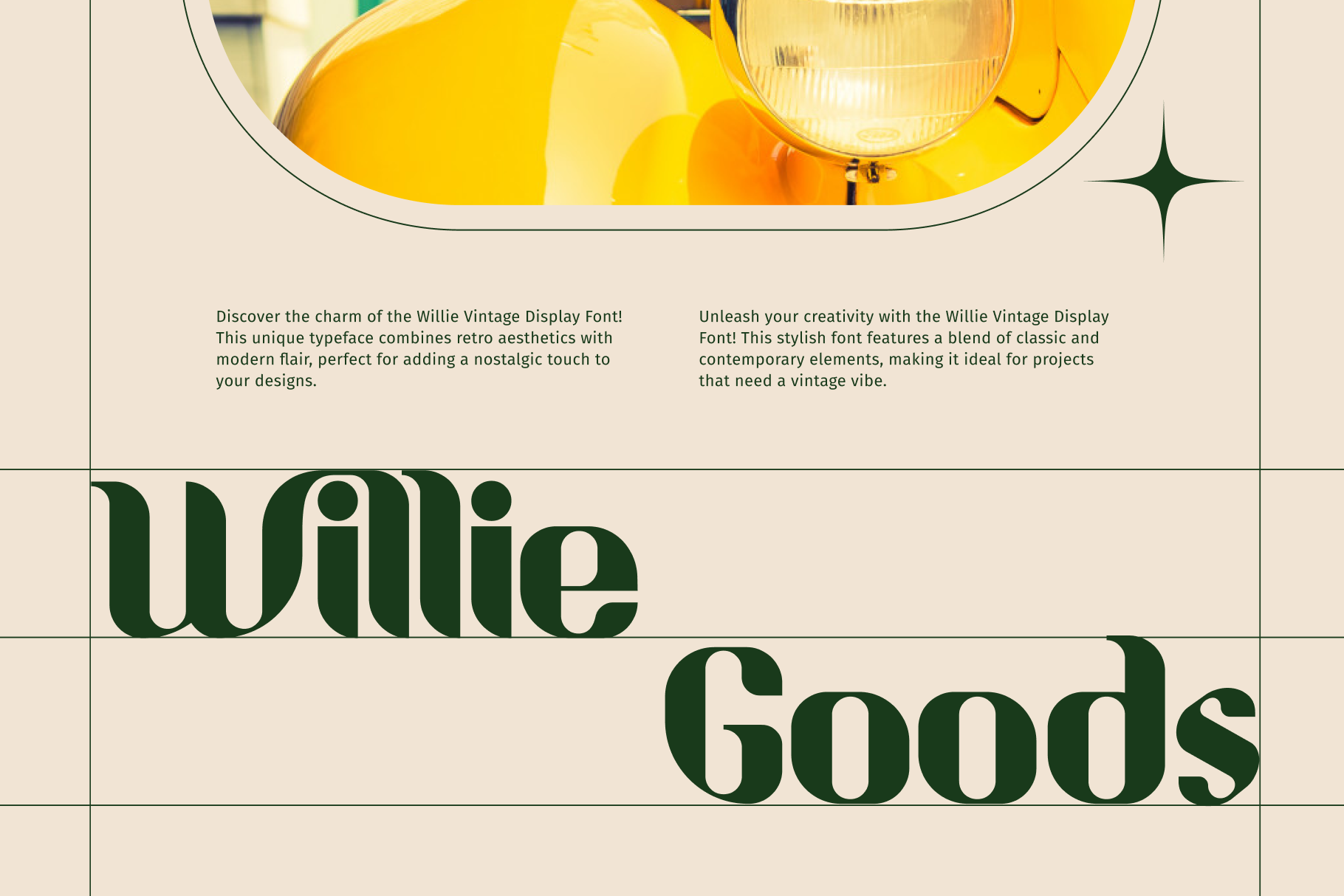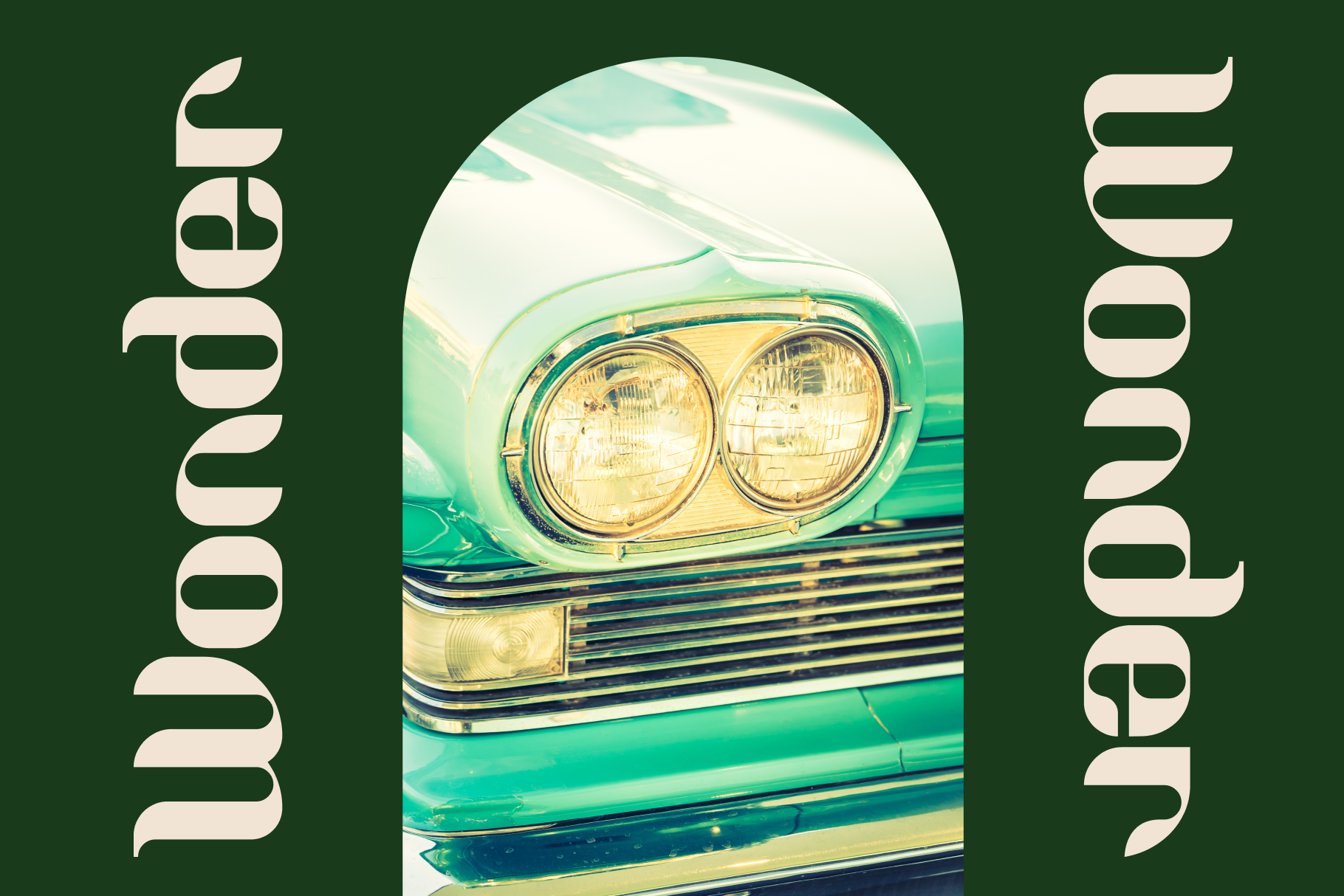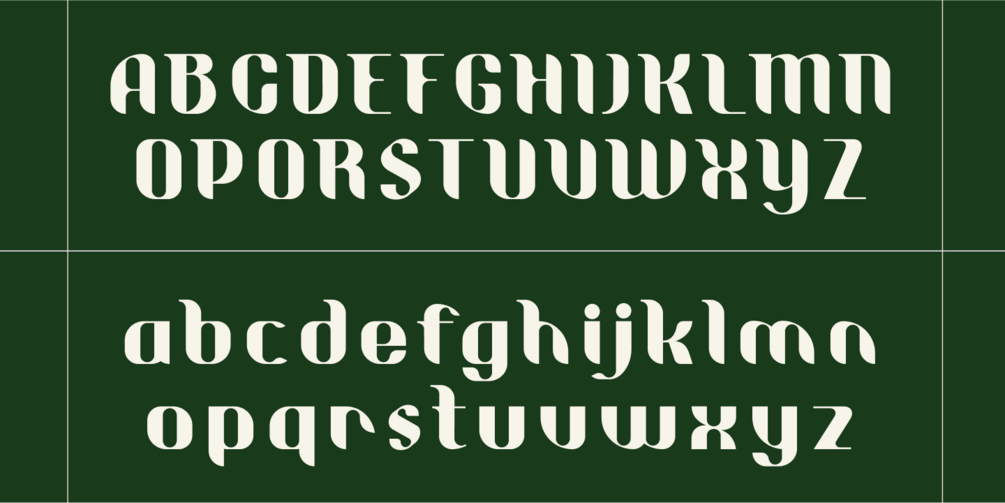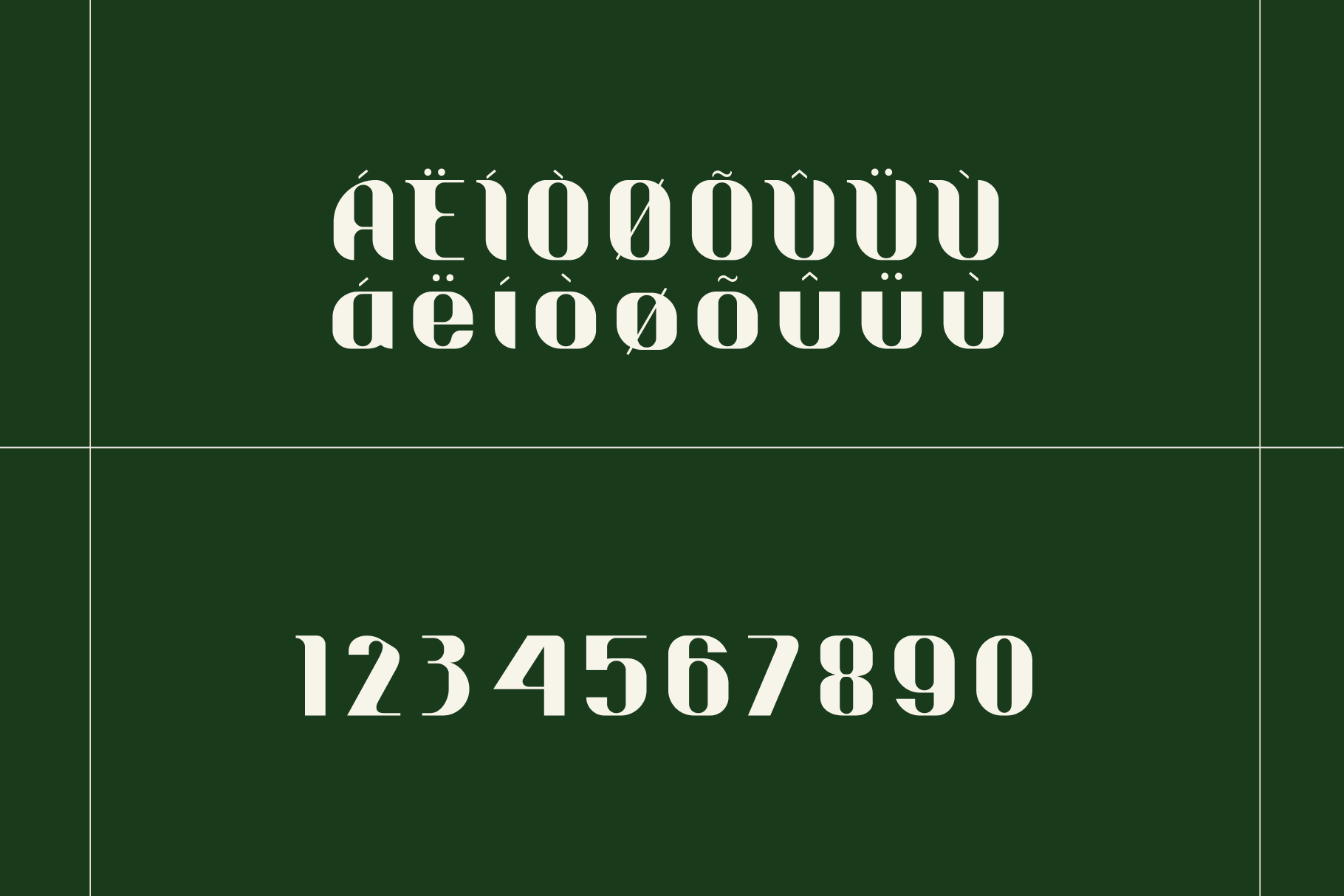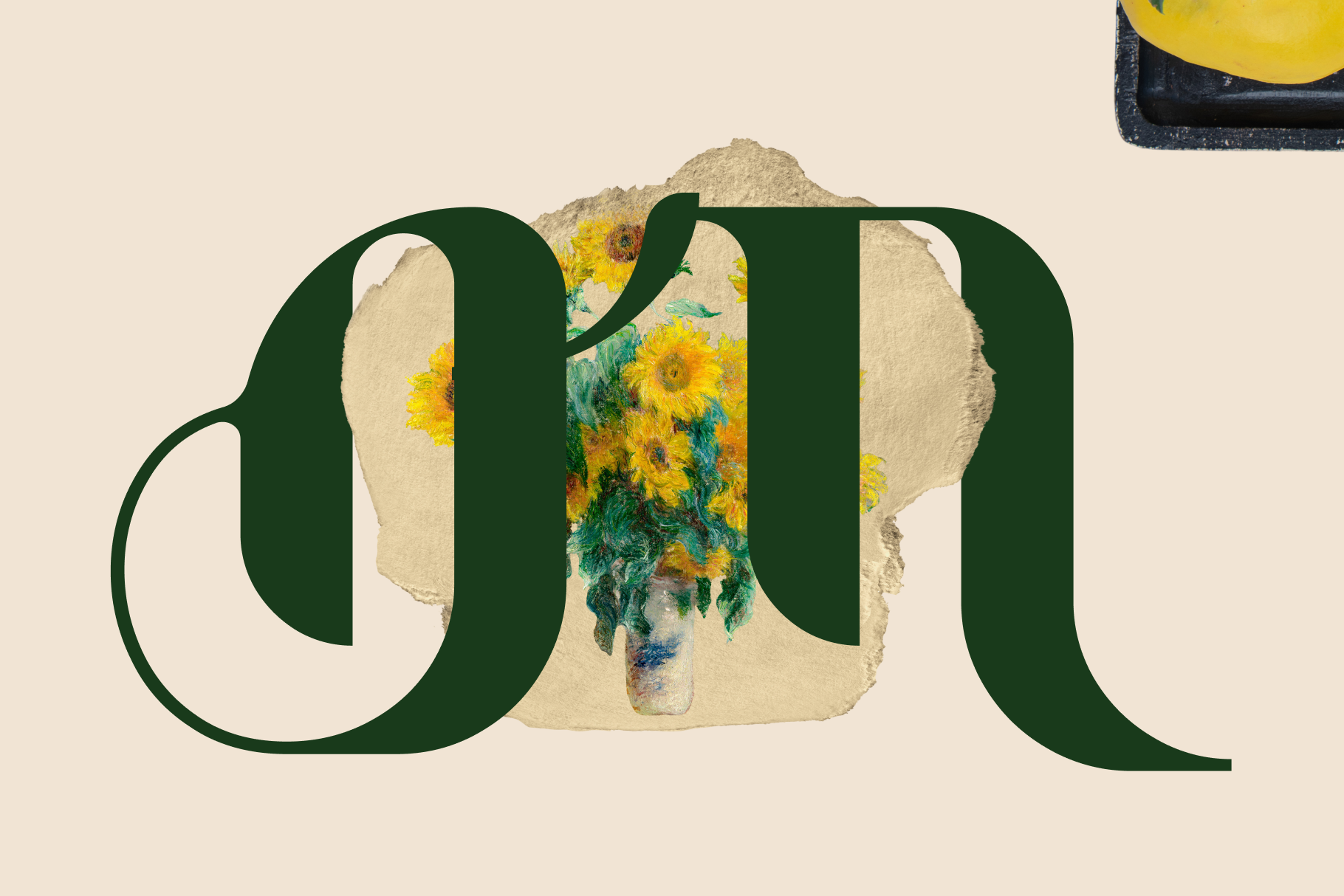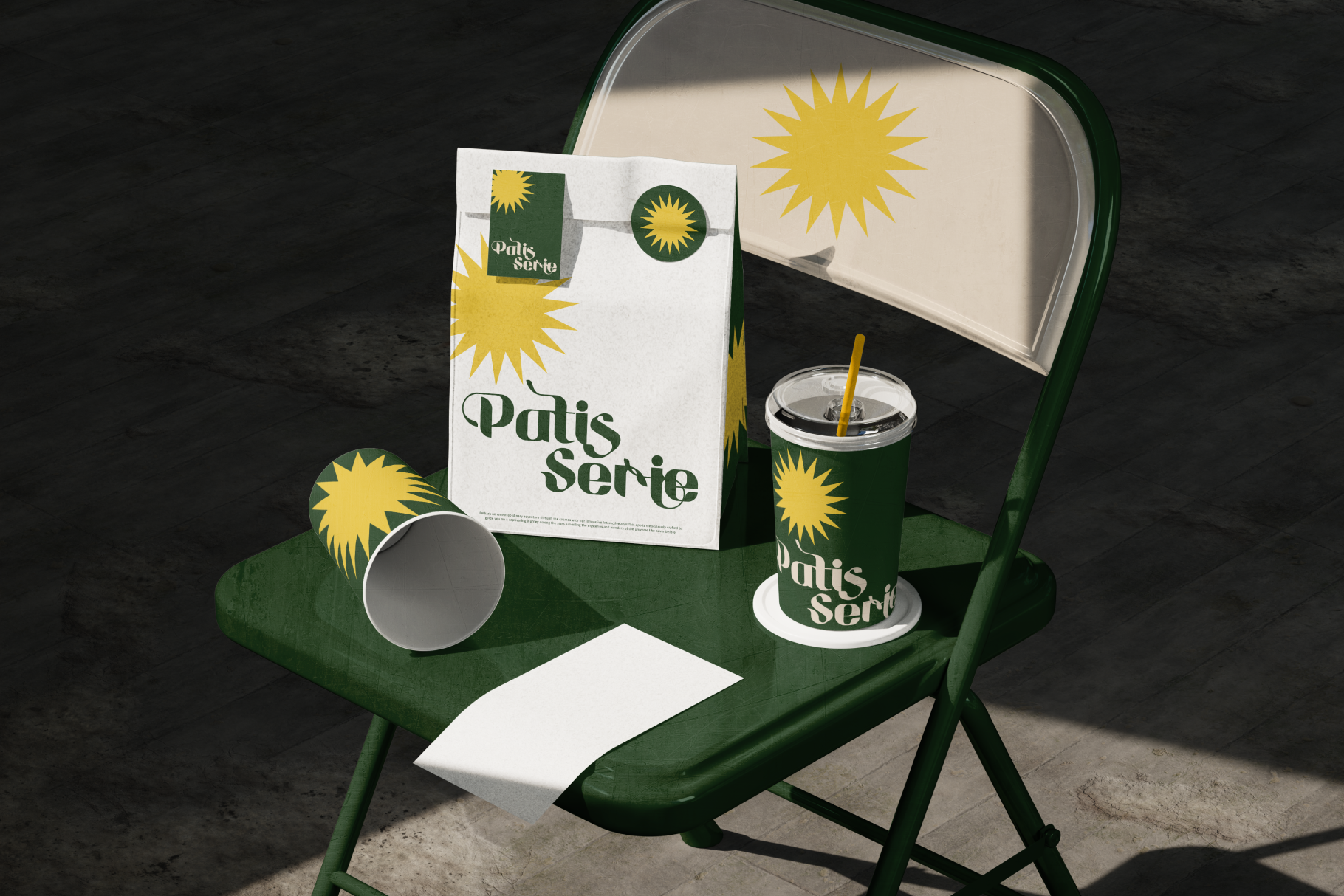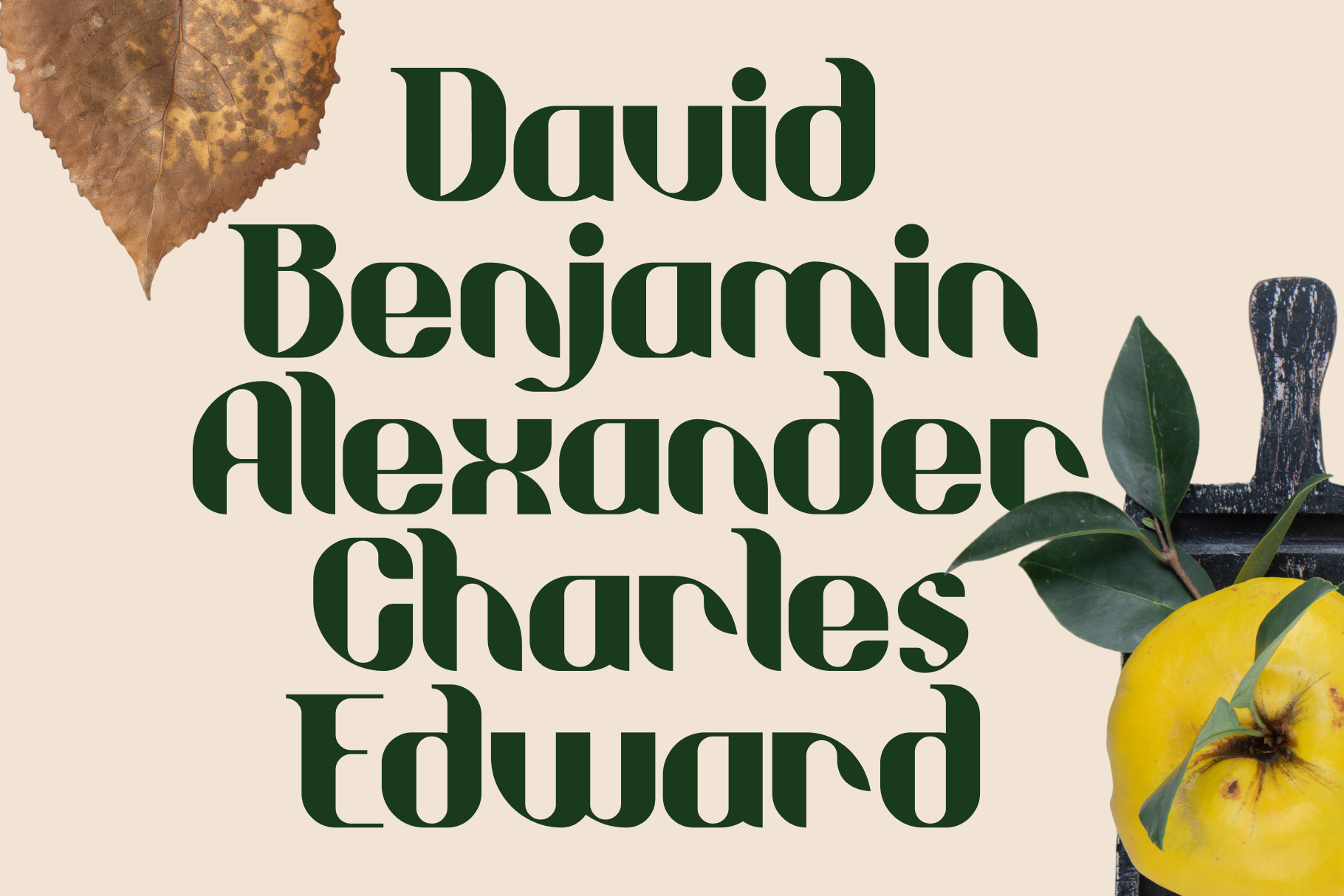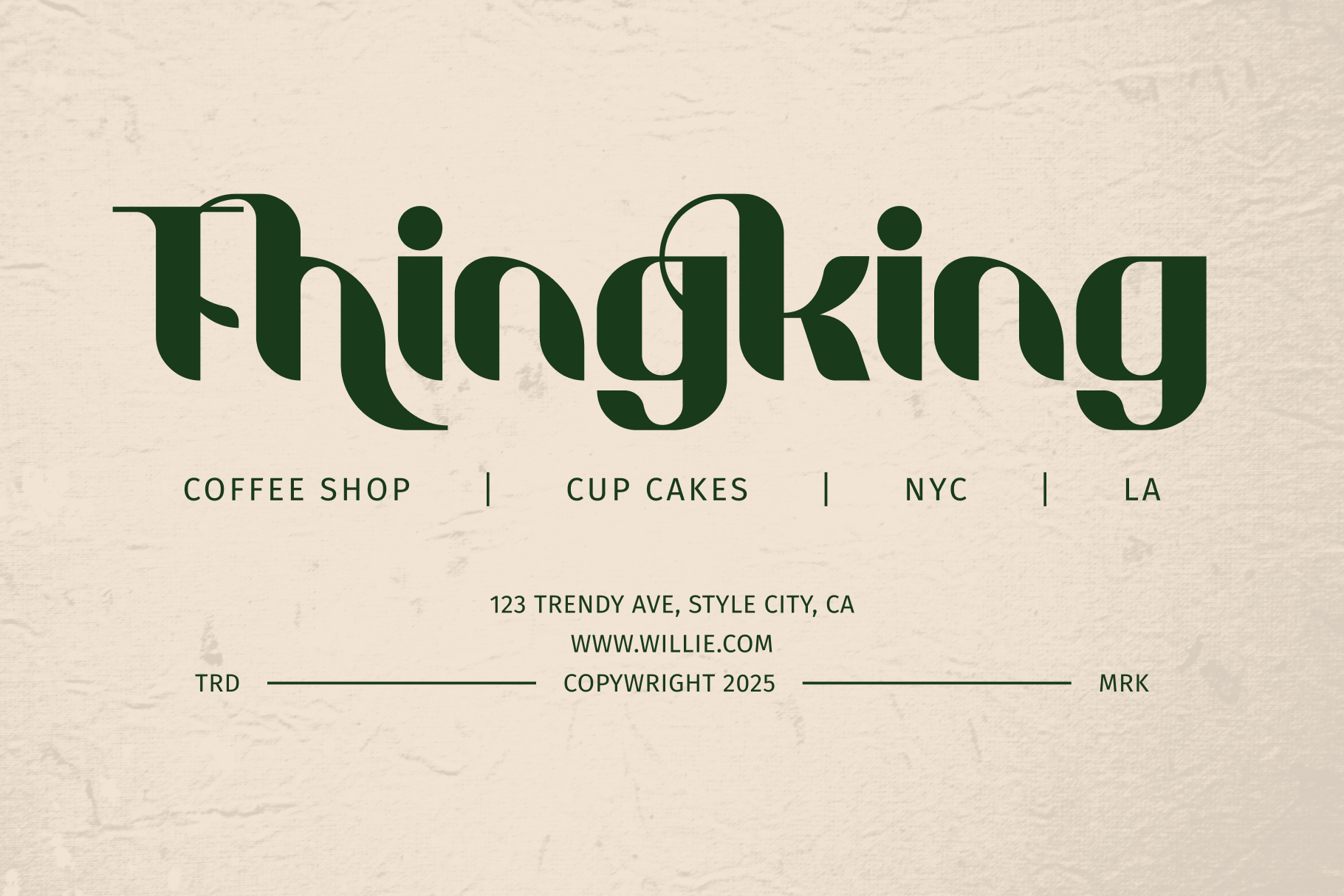
Willie Vintage Display Font
Step back in time with Willie, a stunning display font that captures the timeless elegance of vintage design. Its unique, flowing letterforms evoke a sense of nostalgia, making it perfect for projects that demand a touch of retro charm and sophistication. Whether you're designing posters, creating memorable logos, or crafting branding for a classic-inspired business, Willie adds a distinctive personality that stands out. The font’s bold curves and graceful lines are a tribute to a bygone era of adventure and style. Let Willie transport your audience and give your designs an unforgettable, classic feel.
Uppercase and Lowercase letters
ligature and alternates feature
Numbering and Punctuations
Multilingual